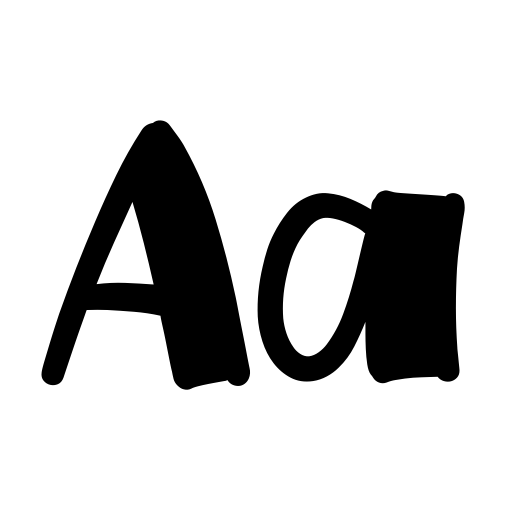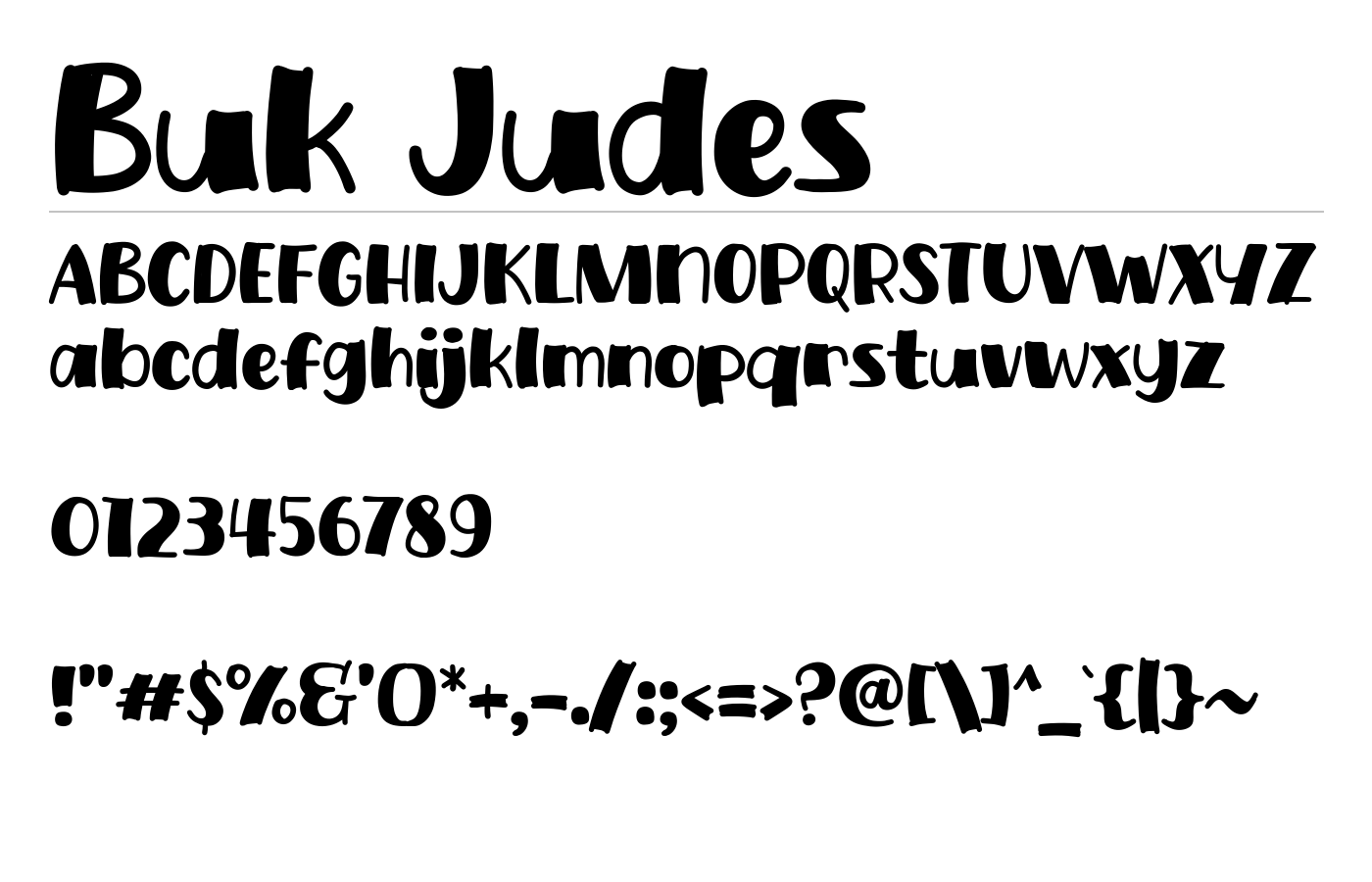
Buk Judes is a playful and bold handwritten font featuring uneven, rounded strokes that give it a casual, friendly feel. Its quirky letterforms and strong personality make it ideal for informal branding, children's materials, or creative headlines where a fun and approachable tone is needed. This font works best in designs that benefit from a lively, handcrafted touch.
Buk Judes Font
About Buk Judes Font
| Font family | Buk Judes Font |